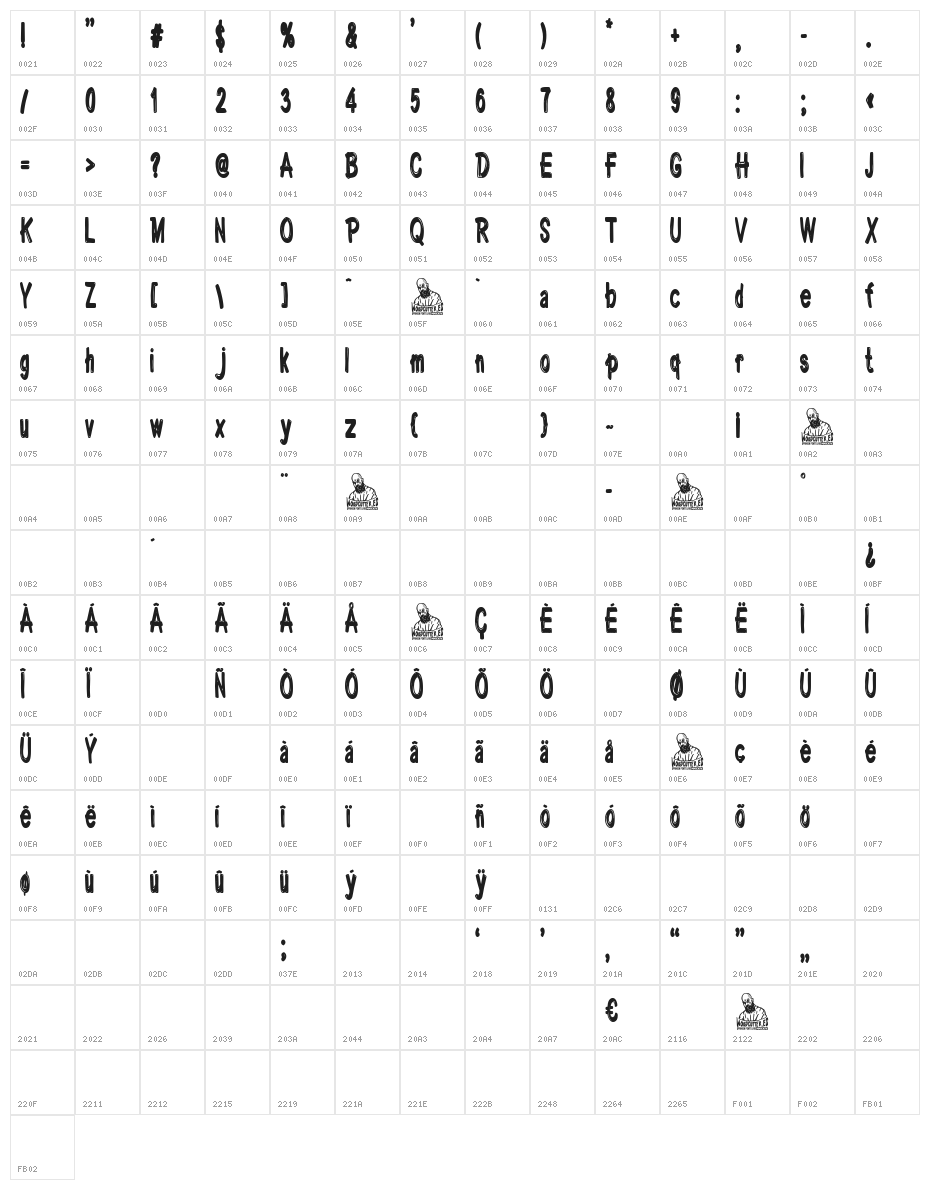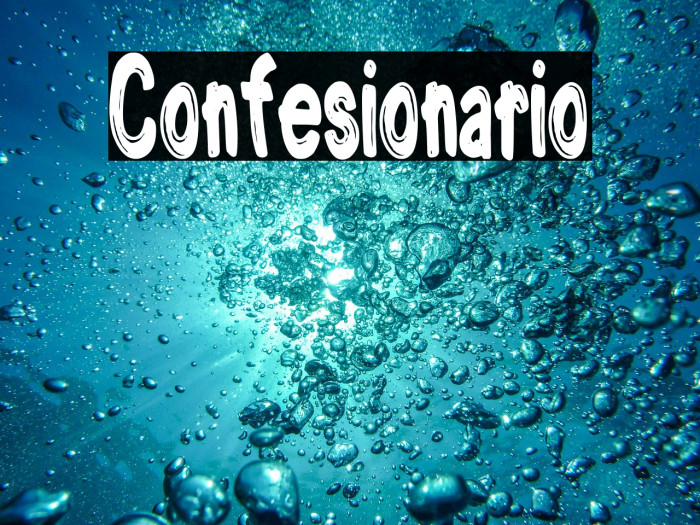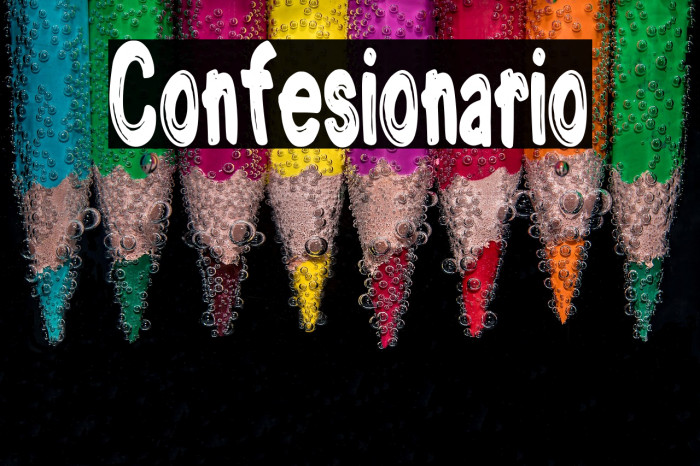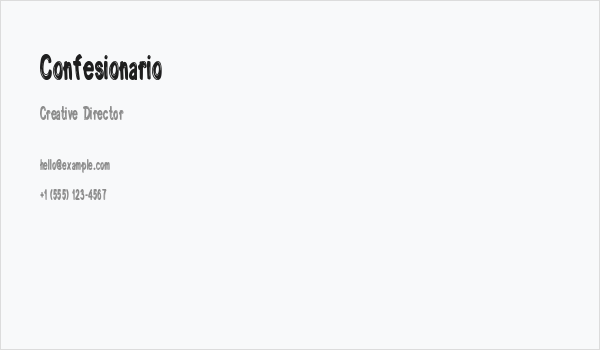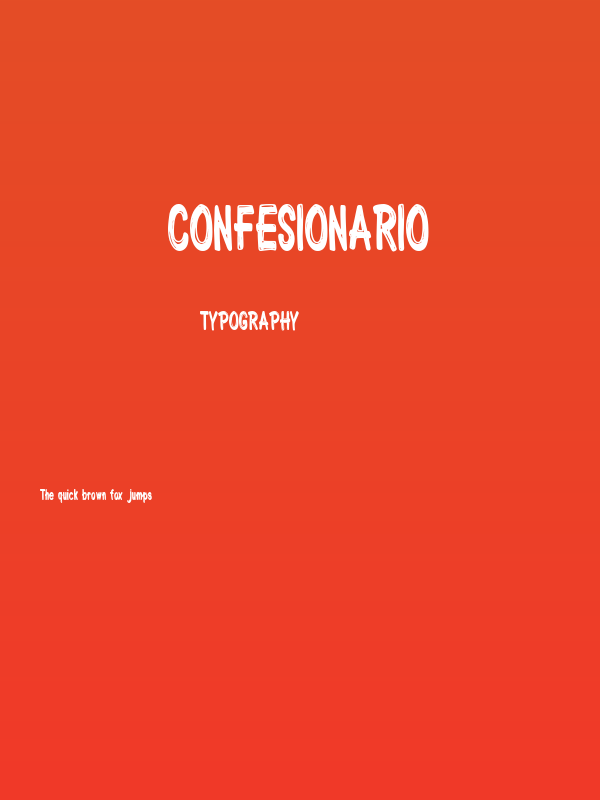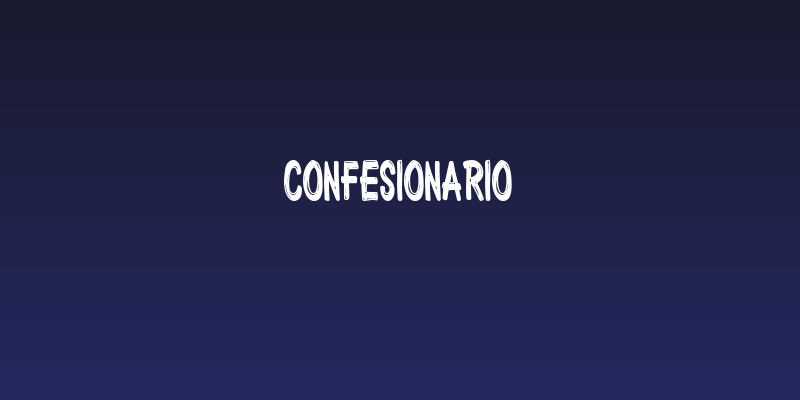
Confesionario Font
Confesionario Description
This font features a bold, playful style with a hand-drawn appearance. The characters have a slightly irregular shape, giving them a whimsical and artistic feel. The strokes are thick and consistent, with a slight wobble that adds to the casual and fun aesthetic. The uppercase and lowercase letters maintain a consistent style, with rounded edges and a slightly compressed form. Numbers and special characters follow the same design principles, ensuring a cohesive look across all elements. This font is ideal for projects that require a touch of creativity and informality.
| Overall Style | Playful, Artistic, Whimsical |
| Use Case | Headlines, Posters, Creative Branding |
| Proposed Projects | Ideal for children's books, playful branding, creative posters, and informal invitations. |